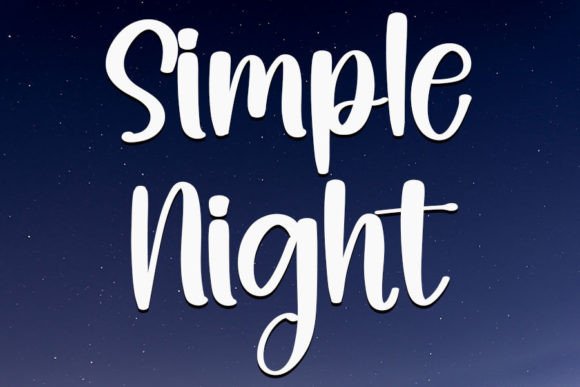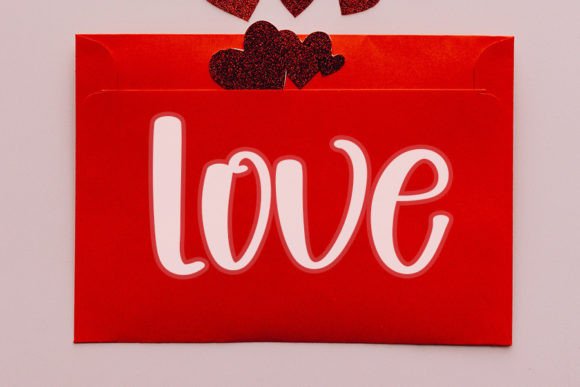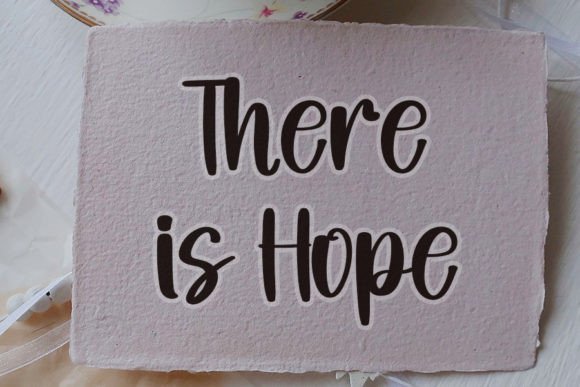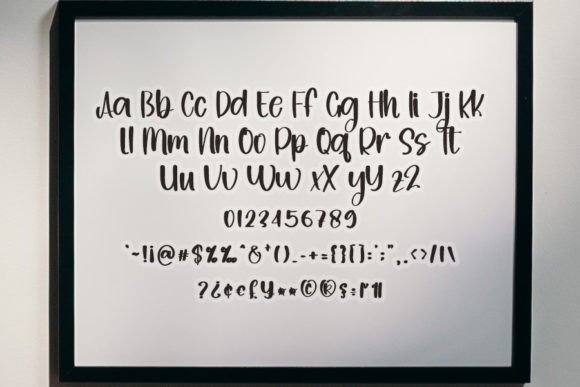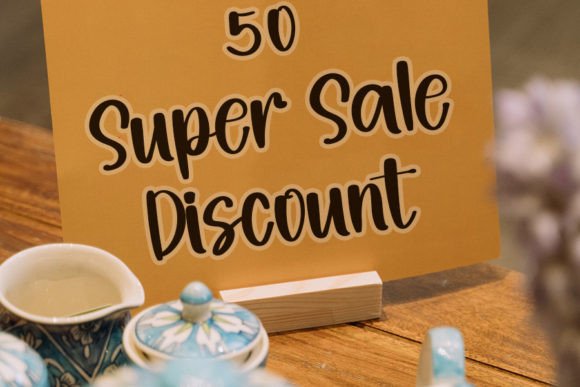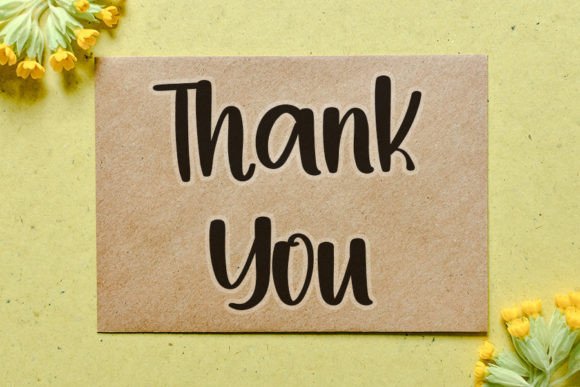
Simple Night Font
Simple Night: A Stylish Handwritten Font with Timeless Calligraphic Charm
If you’re seeking a graceful and visually captivating typeface, Simple Night is the answer. This stylish handwritten font was inspired by the elegance of classic calligraphy, enhanced with a modern touch. Perfect for projects that need sophistication and artistic flair, Simple Night adds warmth and professionalism in equal measure.
Its fluid strokes and dynamic forms make it suitable for a variety of creative and branding uses—from wedding invitations to logo designs and everything in between.
Where Elegance Meets Versatility
Designed with great attention to detail, Simple Night blends traditional calligraphic inspiration with a contemporary vibe. This fusion creates a font that is both nostalgic and fresh—ideal for designers aiming to balance beauty and functionality.
This stylish handwritten font is perfect for:
• Elegant wedding invitations and save-the-dates
• Fashion and lifestyle brand logos
• Personalized stationery and thank you cards
• Inspirational quotes and social media posts
• Product packaging, labels, and hang tags
• Digital downloads, planners, and templates
Whether you’re working on romantic or professional themes, Simple Night adapts effortlessly to your needs.
What Makes Simple Night Font Stand Out?
Simple Night is more than just good-looking—it’s crafted with precision for real-world usability. The characters are beautifully spaced and flow naturally, making the font both aesthetically pleasing and easy to read.
Key reasons to use Simple Night:
• Calligraphy-inspired script with modern balance
• Smooth curves and consistent stroke weight
• High readability in both small and large sizes
• Compatible with print and digital media
• Adds a luxurious feel to both minimalist and detailed designs
It can stand alone as a headline font or work in harmony with minimalist sans-serif body fonts.
Simple Night is a font that can carry the emotional weight of personal design and the polish of professional branding. Its refined character makes it an excellent fit for a wide range of industries and design intentions.
Use cases include:
• Custom branding packages
• Editorial layouts and magazine titles
• Printable artwork and motivational posters
• Holiday cards and special event signage
• Downloadable resources like resumes and workbooks
Its versatility ensures you’ll return to it again and again.
If you’re searching for a stylish handwritten font that blends elegance, flexibility, and charm, Simple Night is an outstanding choice. Its refined forms and timeless spirit will elevate any creative project you bring to life.